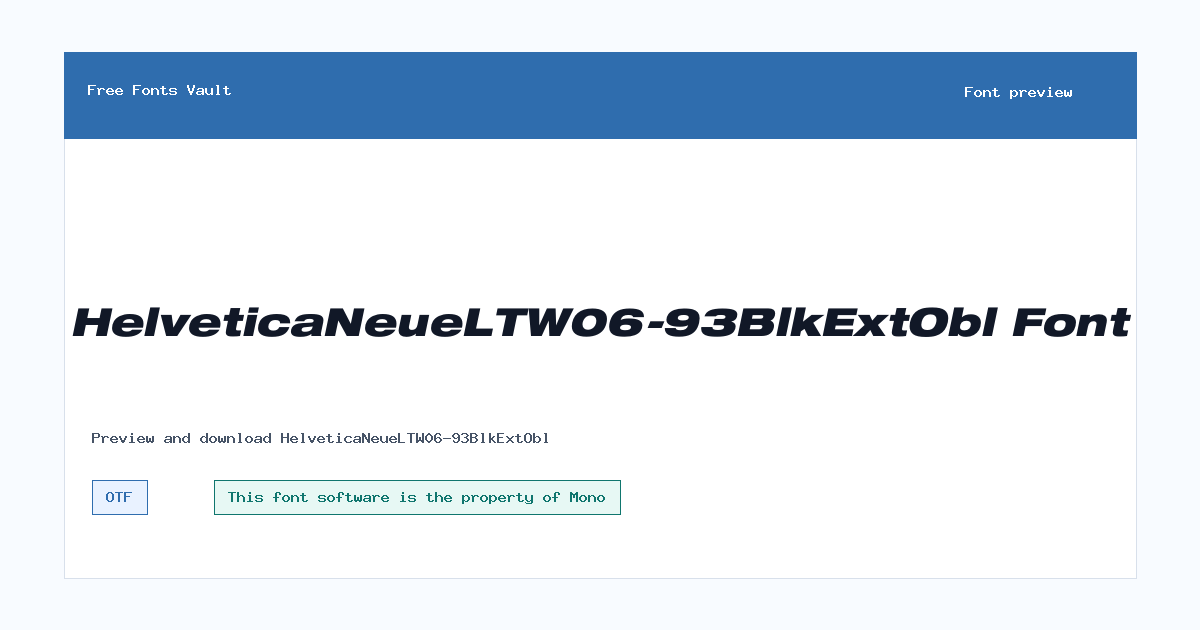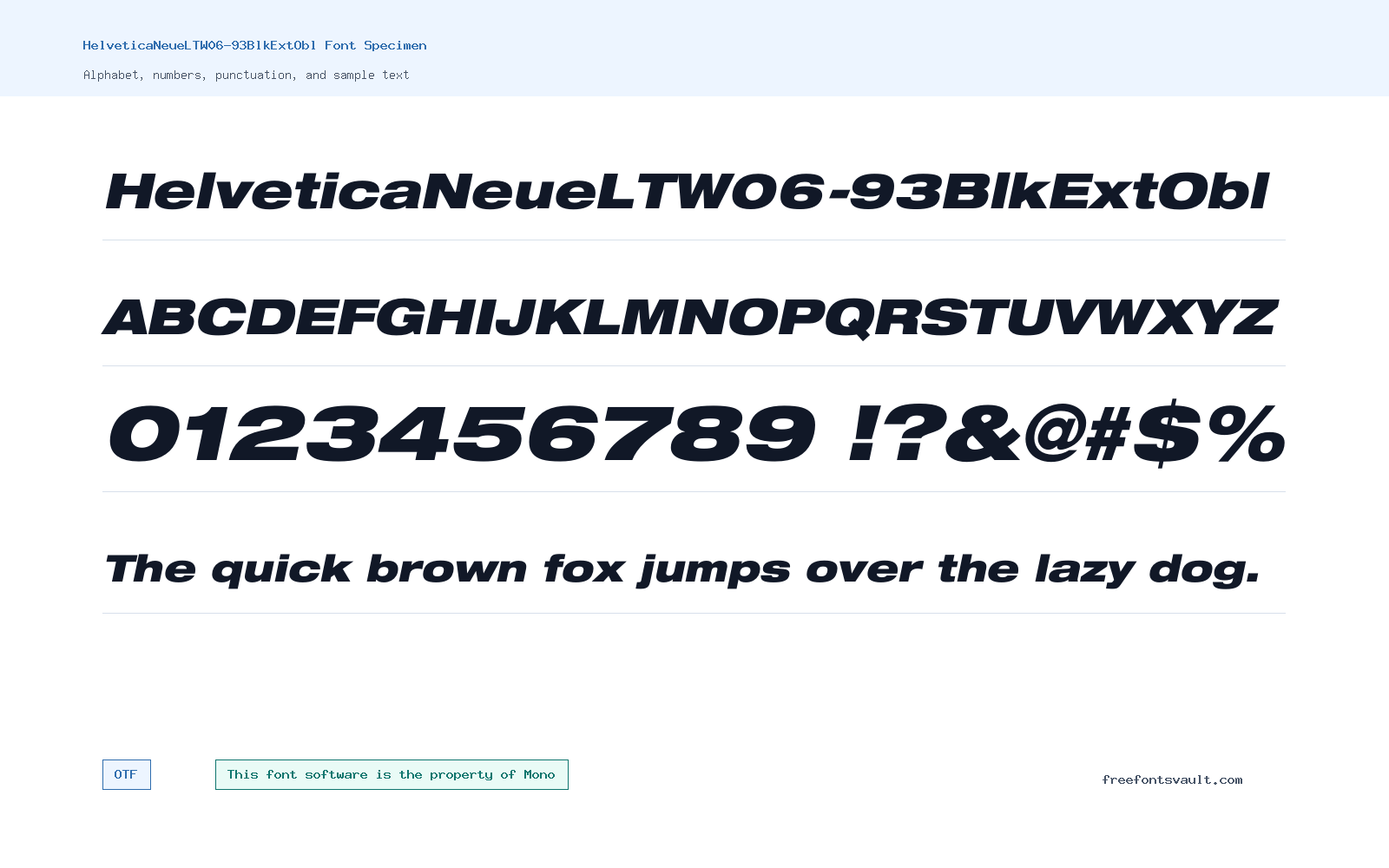
HelveticaNeueLTW06-93BlkExtObl
- Designer Linotype Design Studio
- Foundry Monotype Imaging Inc.
HelveticaNeueLTW06-93BlkExtObl font.
HelveticaNeueLTW06-93BlkExtObl is a heavy, wide, slanted display-style font name that points to a black extended oblique cut. It is best approached as a strong headline face rather than a long-reading text font.
About HelveticaNeueLTW06-93BlkExtObl
The name HelveticaNeueLTW06-93BlkExtObl suggests a bold extended oblique member of the Helvetica Neue LT W06 family naming system. In practical terms, expect a dense, wide-set look with a forward-leaning angle. That combination can give short words and titles a firm, modern presence, especially when the preview text is kept brief.
Use the preview tool to test uppercase words, numbers, and short phrases before deciding where it fits. Extended and heavy styles often need extra space around them, so check how the font behaves in banners, title cards, covers, and large labels. For paragraphs, navigation menus, or small captions, choose a lighter or more compact companion font so the page stays readable.
A useful quick check is to preview the same word in title case, all caps, and with numbers beside it. Heavy extended oblique cuts can look excellent in a wide hero area, but they may feel cramped in narrow columns. If the letters start touching visually, increase tracking slightly or reduce the line length instead of forcing the type into a small space.
- Heavy extended oblique style suggested by the family name
- Wide display proportions for strong horizontal emphasis
- Large headlines and short title settings
- Posters, banners, labels, and bold display text
- Hero headers where one short phrase needs strong weight
Designer is listed as Linotype Design Studio, and the foundry is listed as Monotype Imaging Inc.
Try this font at large sizes first. Keep text short, give the letters room, and test spacing carefully because heavy extended oblique styles can crowd a layout quickly. Pair it with a simpler text face for body copy.
What kind of design work suits this font?
It is most suitable for short, large display text such as headlines, posters, banners, and labels. It is not a good first choice for long paragraphs.
Who designed HelveticaNeueLTW06-93BlkExtObl?
The designer is listed as Linotype Design Studio.